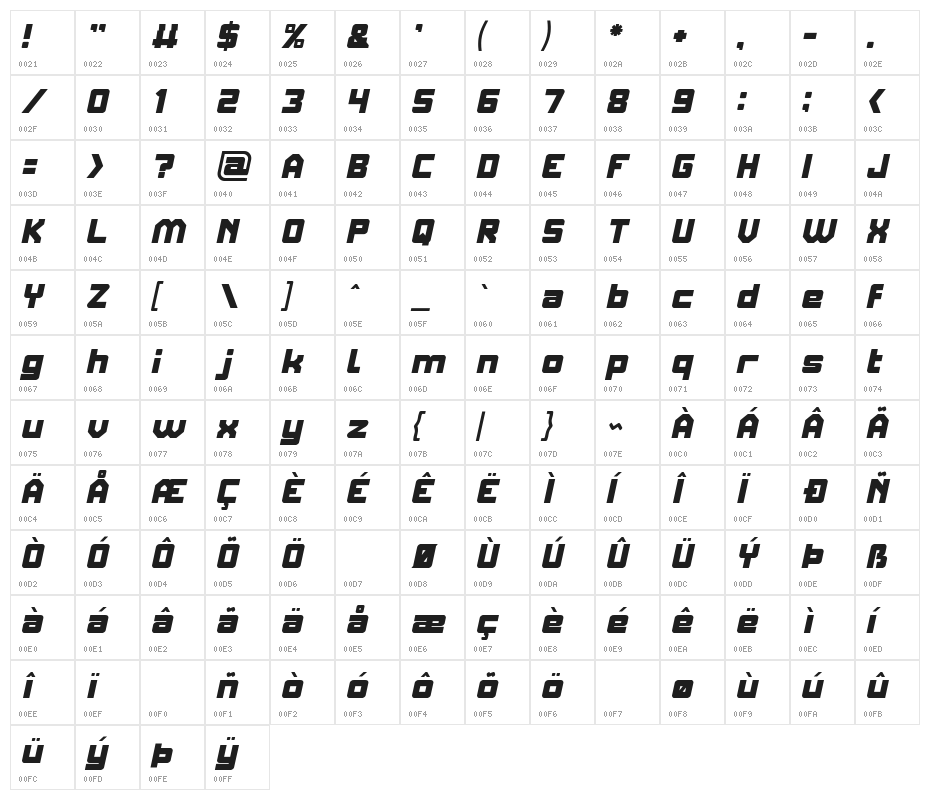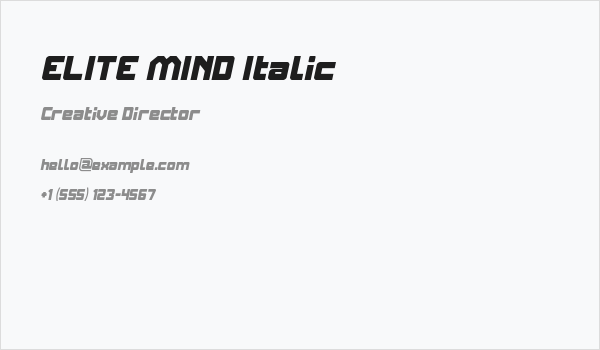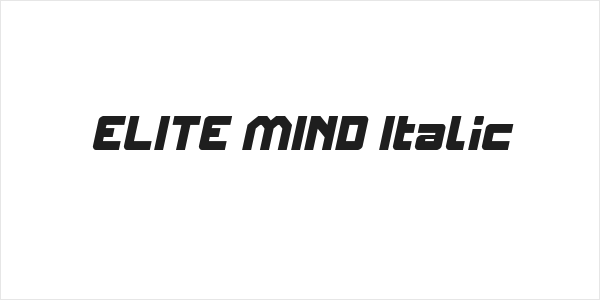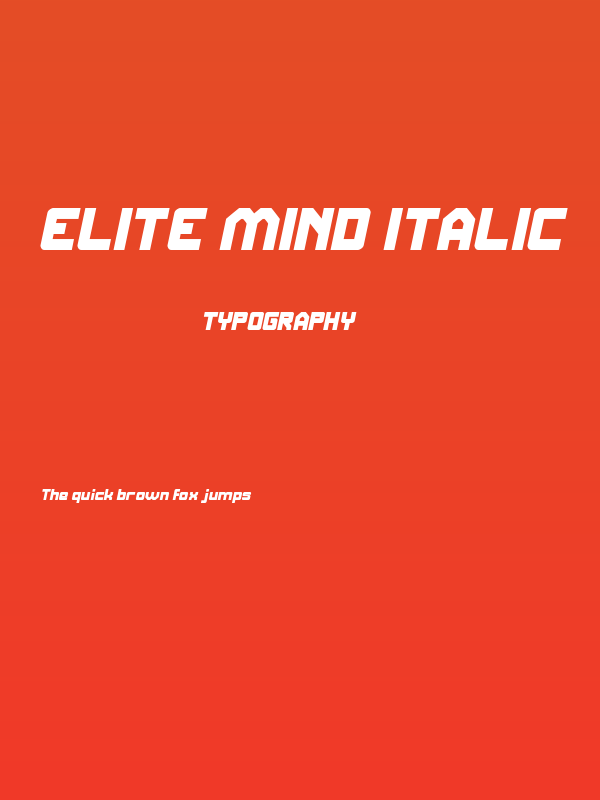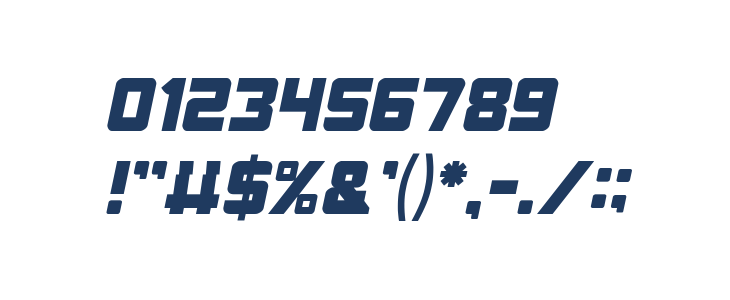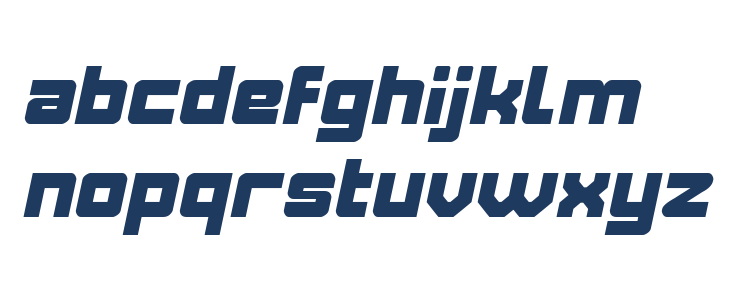
ELITE MIND Italic Font
ELITE MIND Italic Description
This font features a bold, italicized style with a modern and dynamic appearance. The characters are slightly slanted, giving a sense of motion and energy. The strokes are thick and consistent, providing a strong visual impact. The design is geometric with sharp angles and clean lines, making it suitable for attention-grabbing headlines or branding. The uppercase and lowercase letters maintain a uniform style, while the numerals and special characters complement the overall aesthetic.
| Proposed Projects | Ideal for sports branding, dynamic posters, modern logos, and eye-catching headlines. |